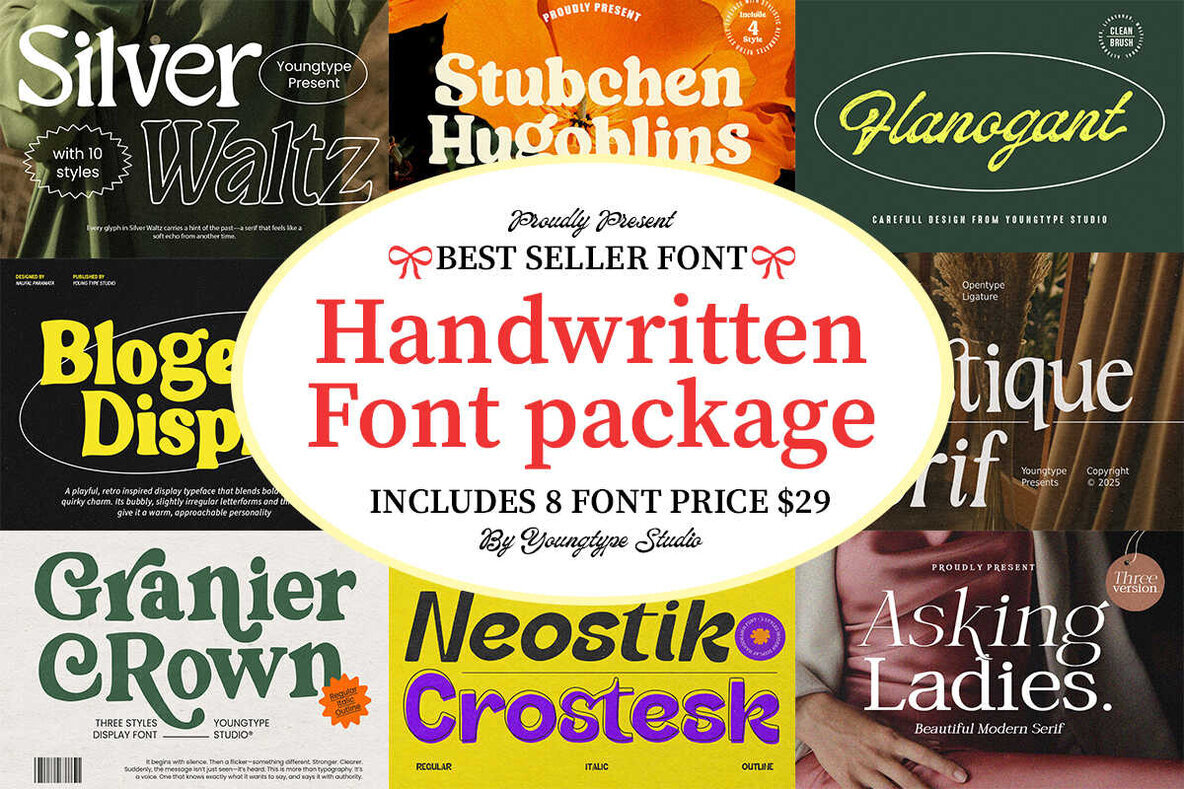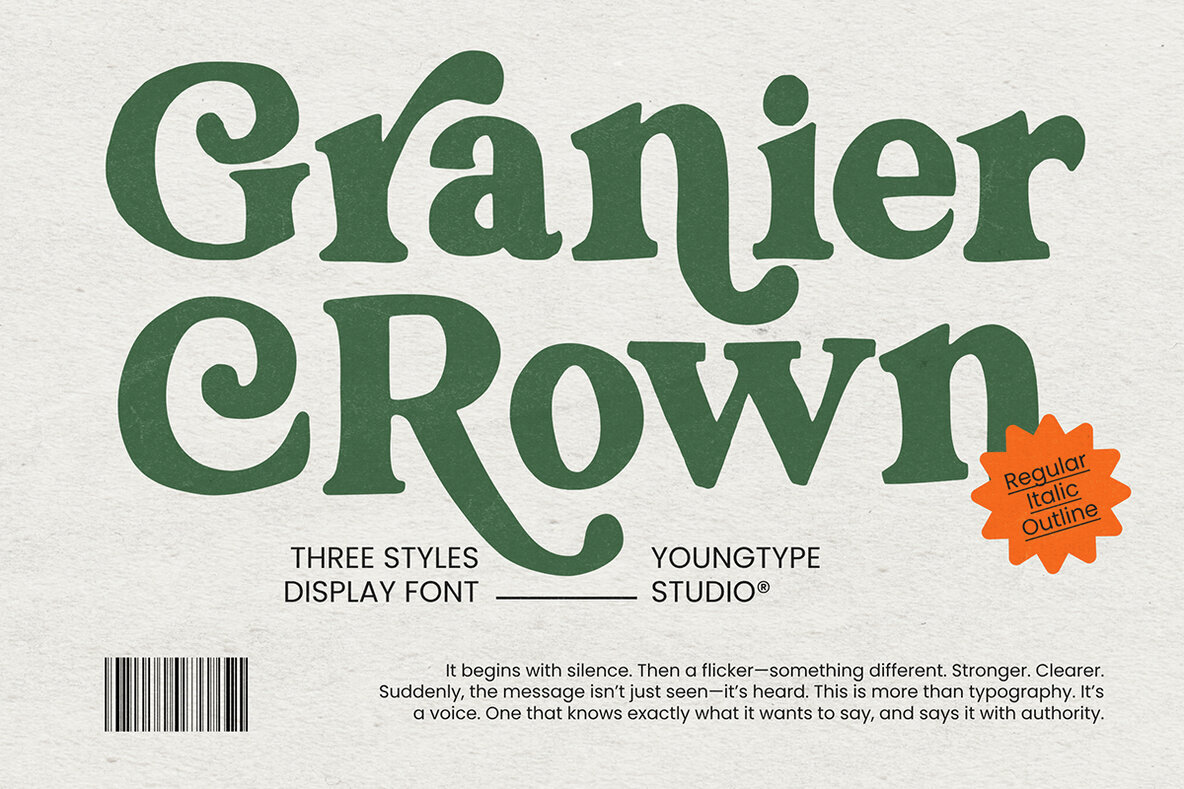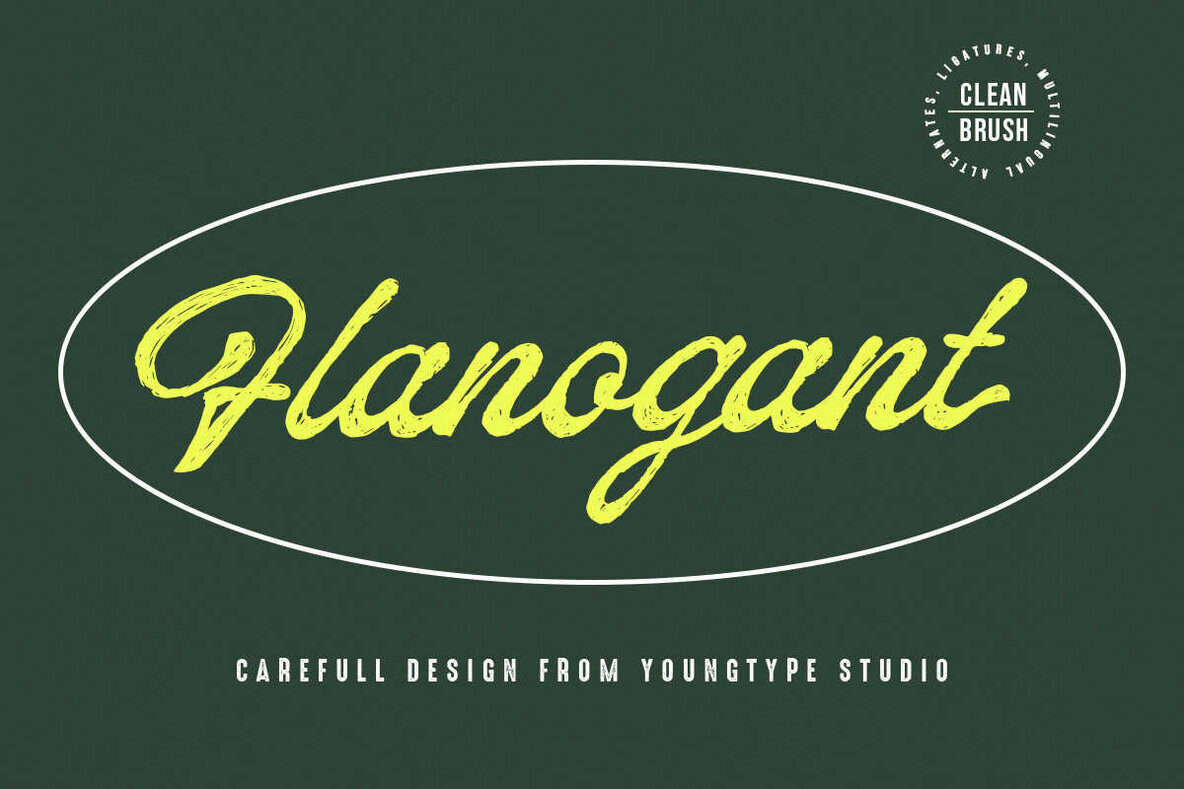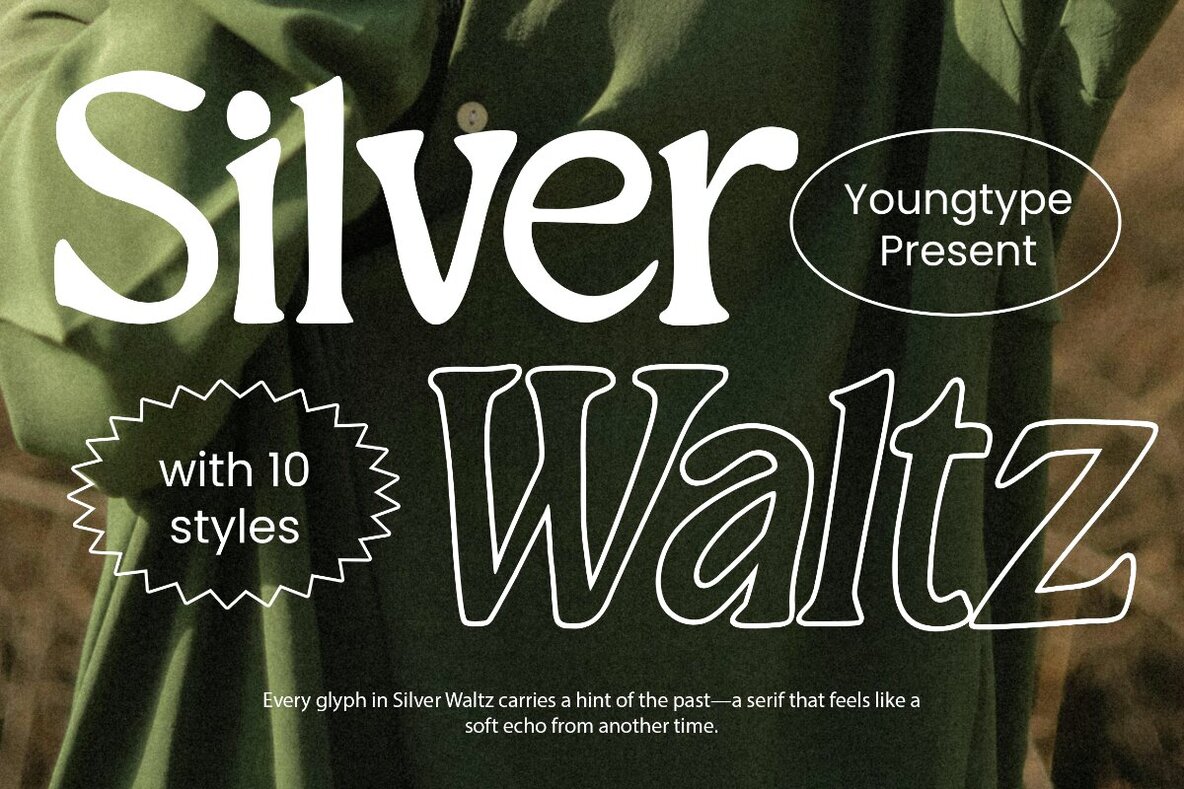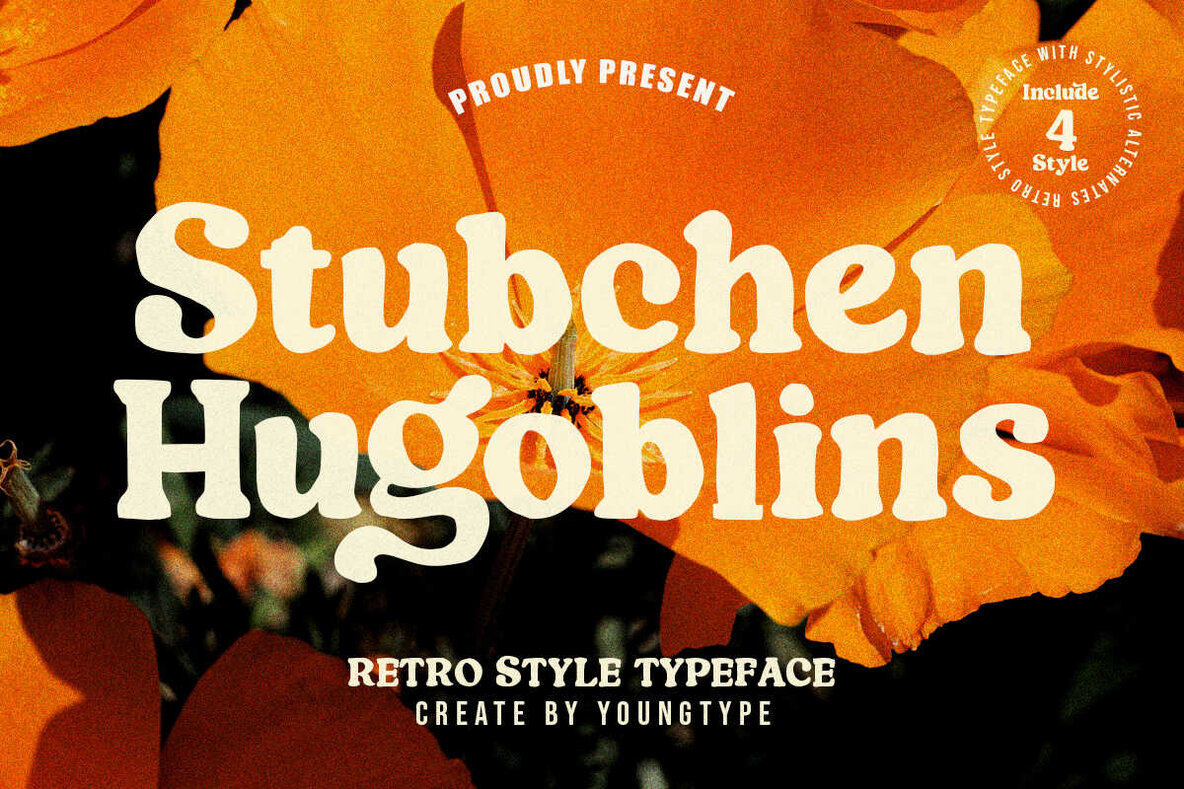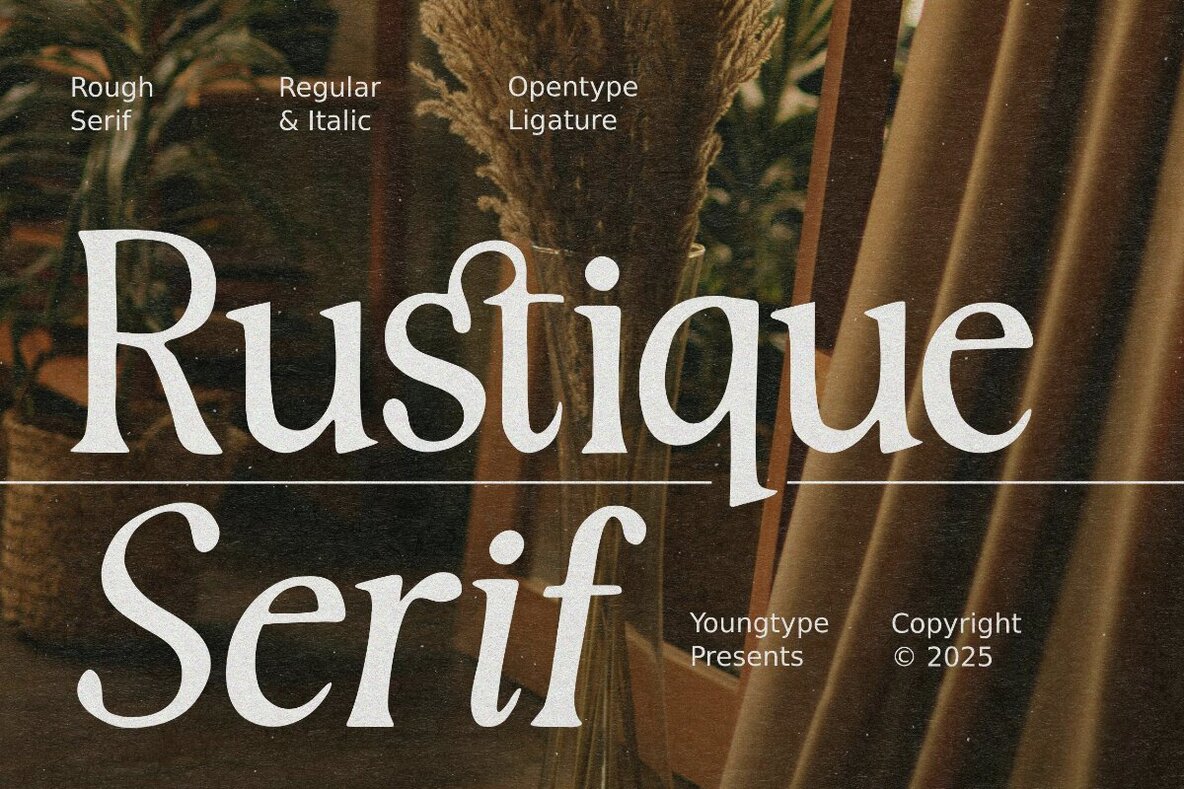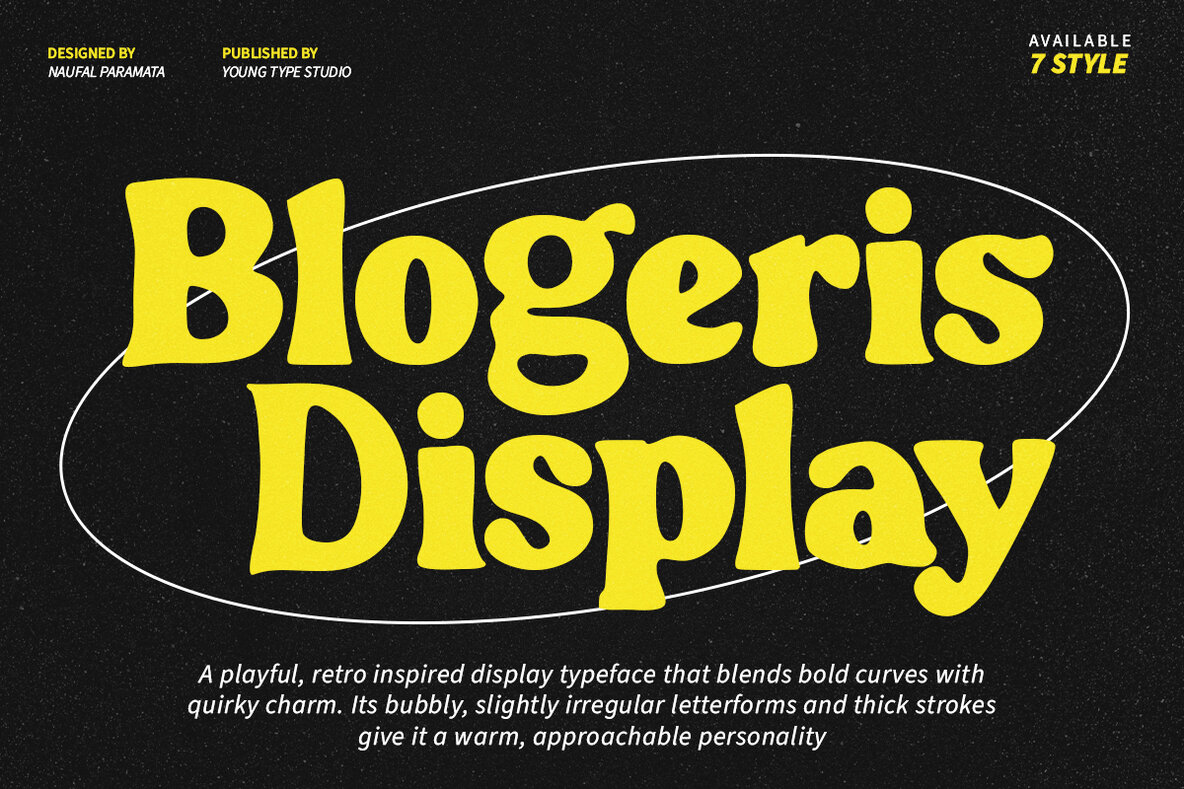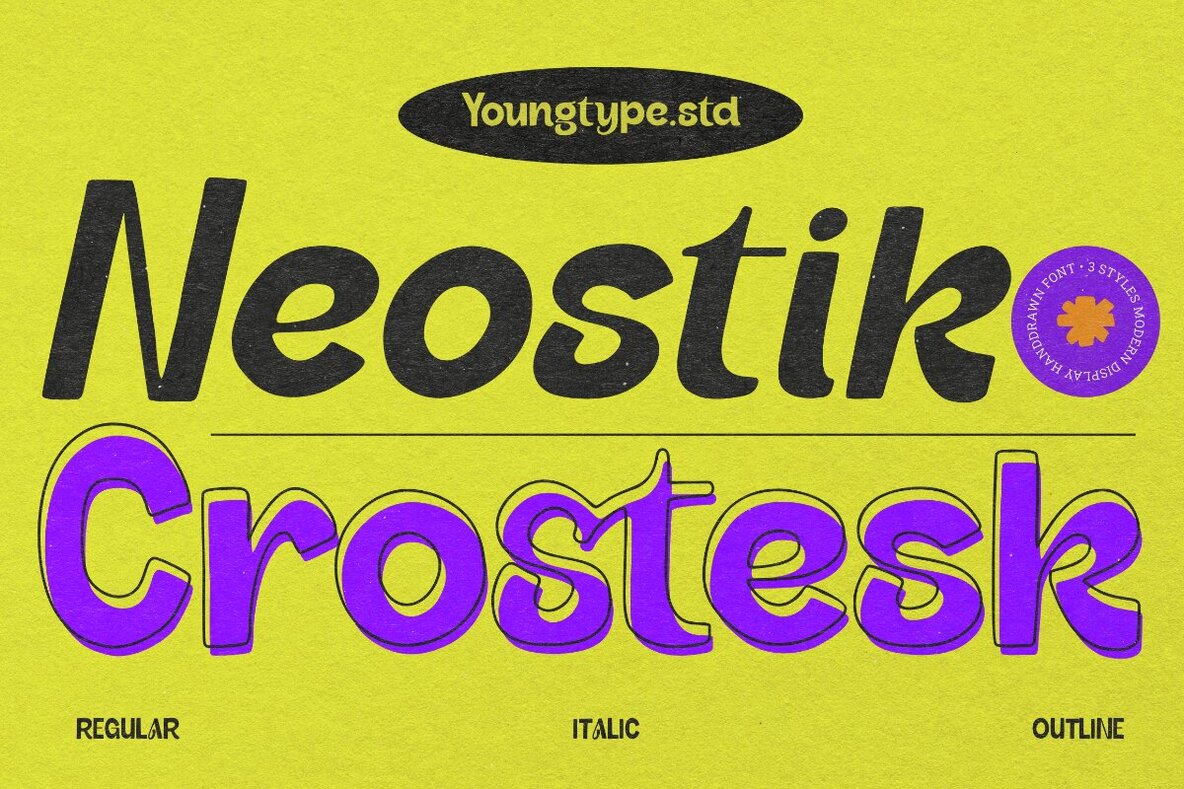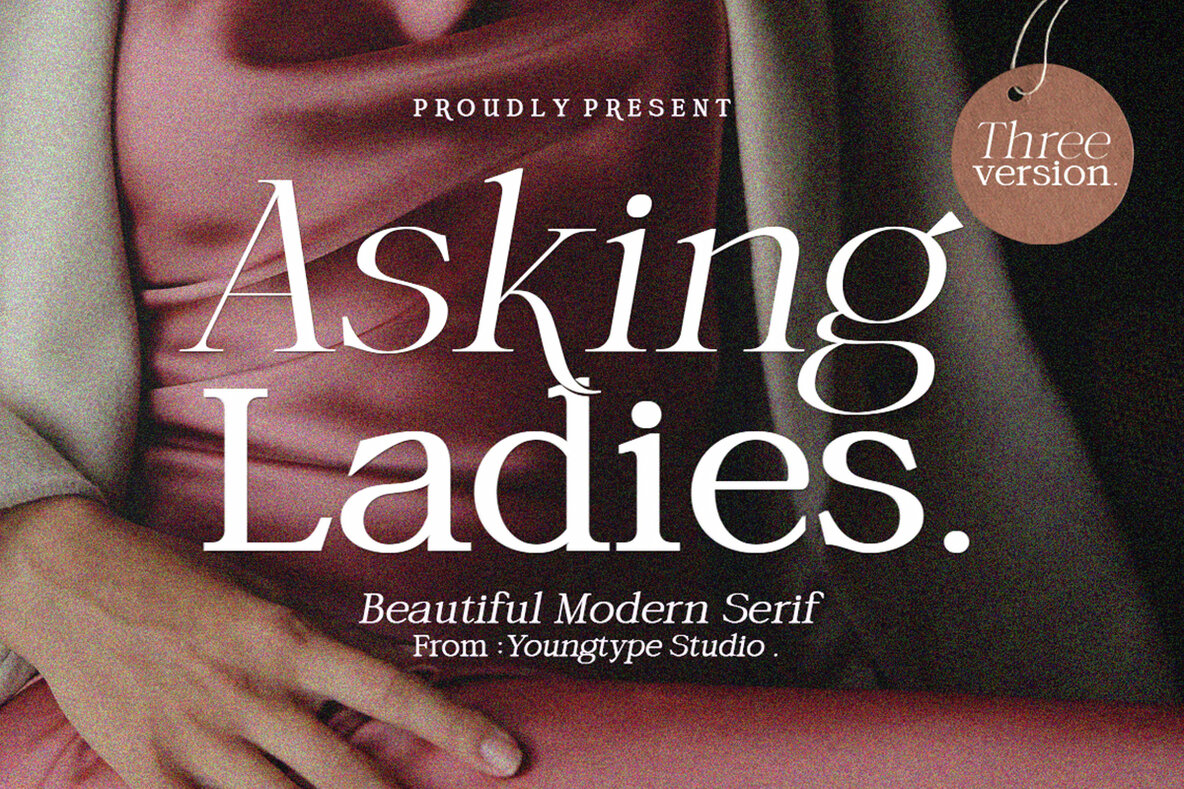
Handwritten Font Package
Explore a curated selection of eight bespoke fonts, thoughtfully crafted by Youngtype Studio, offered at an accessible price. This collection features a rich array of styles, from modern serif and playful display to clean brush, retro-inspired, and elegant handwritten scripts, suitable for a wide range of creative endeavors. Each typeface in this collection exudes unique character and adaptability, making it ideal for projects like branding, packaging, posters, invitations, and social media. The blend of stylish, creative, and professional fonts in this package serves as an indispensable resource for designers seeking to infuse their typography with distinct personality and charm.Handwritten Font Collection: A Versatile Designer's Toolkit